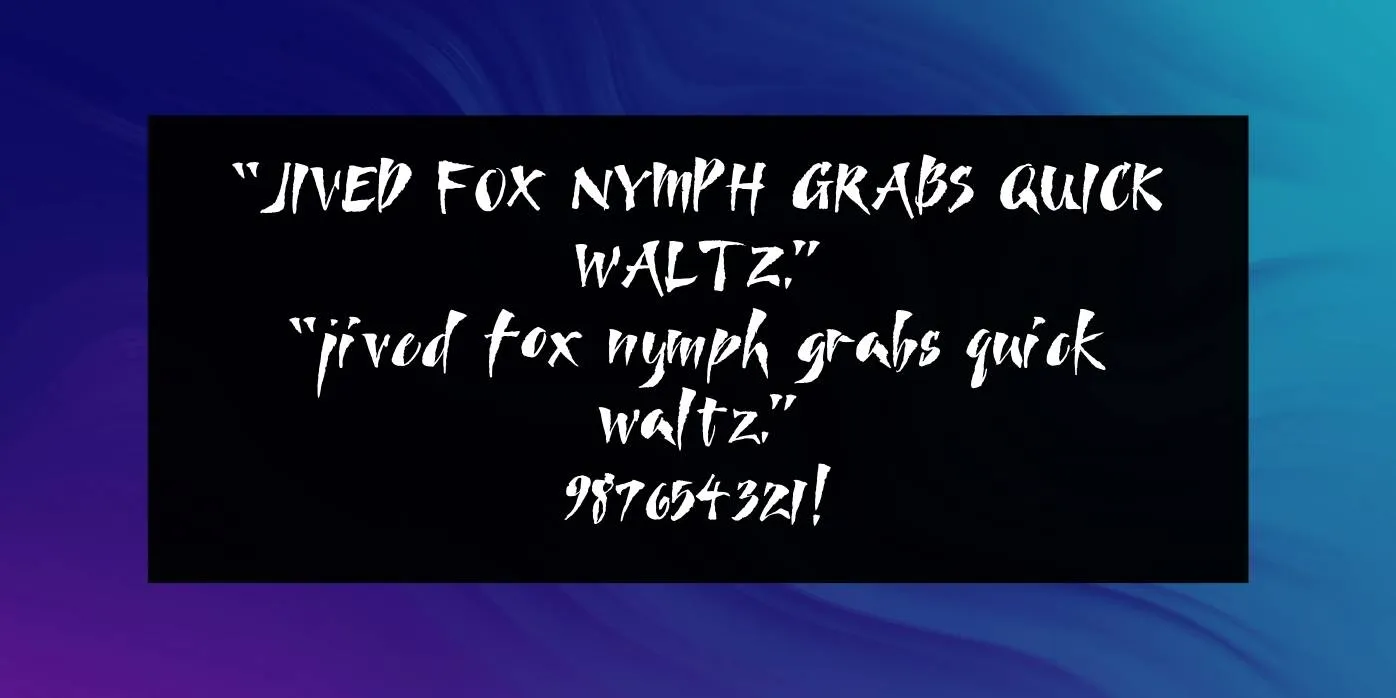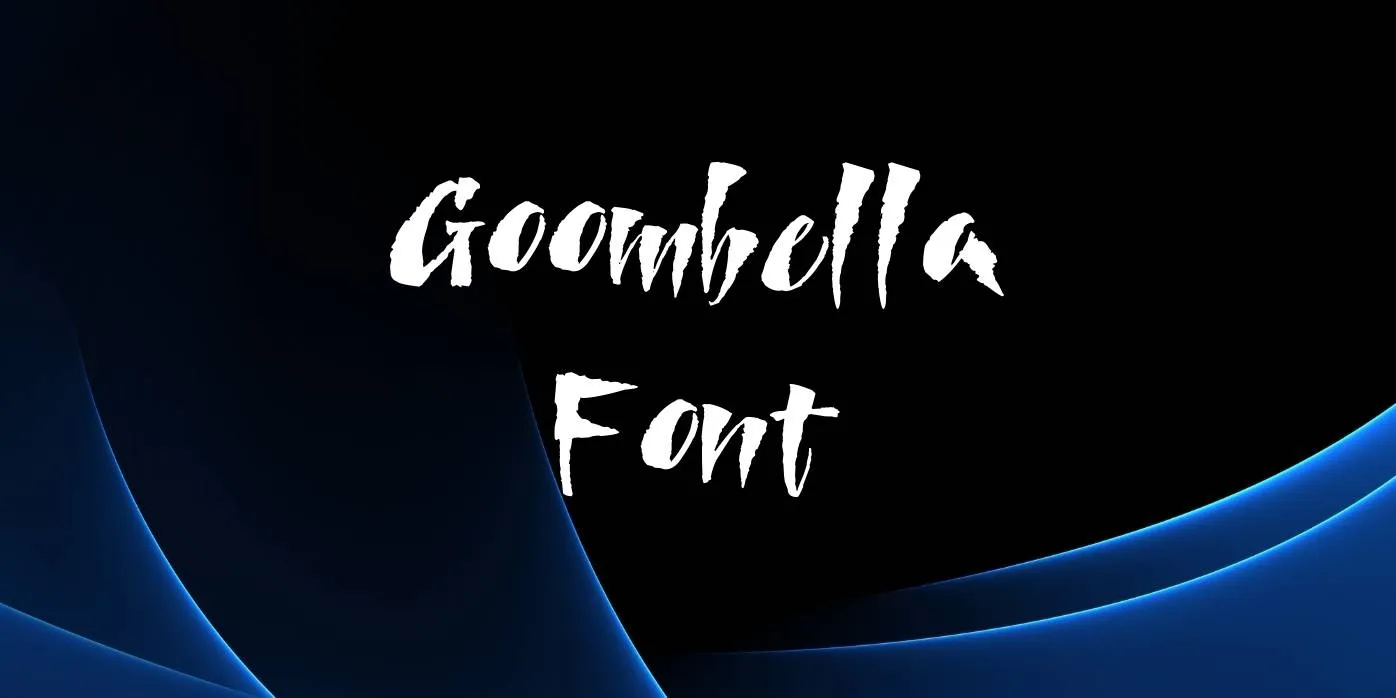
Goombella Font
Goombella Font is a typeface that was created by Mario 64 designer Shigefumi Hino. The name comes from the Italian word “goomba”, which means “cute little mushroom”. This font was used in the Super Mario 64 game manuals and is also the default font for the popular fan-made game Super Mario 64: Last Impact. This font also easily utilize in adobe editing software like photoshop, illustrator, InDesign, and many others.
This font style contains both upper- and lowercase letters, as well as numbers and special characters. This typeface style has been downloaded over 100,000 times and is available for both personal and commercial use. If you’re looking for a cute and cheerful font, this font is a perfect choice!